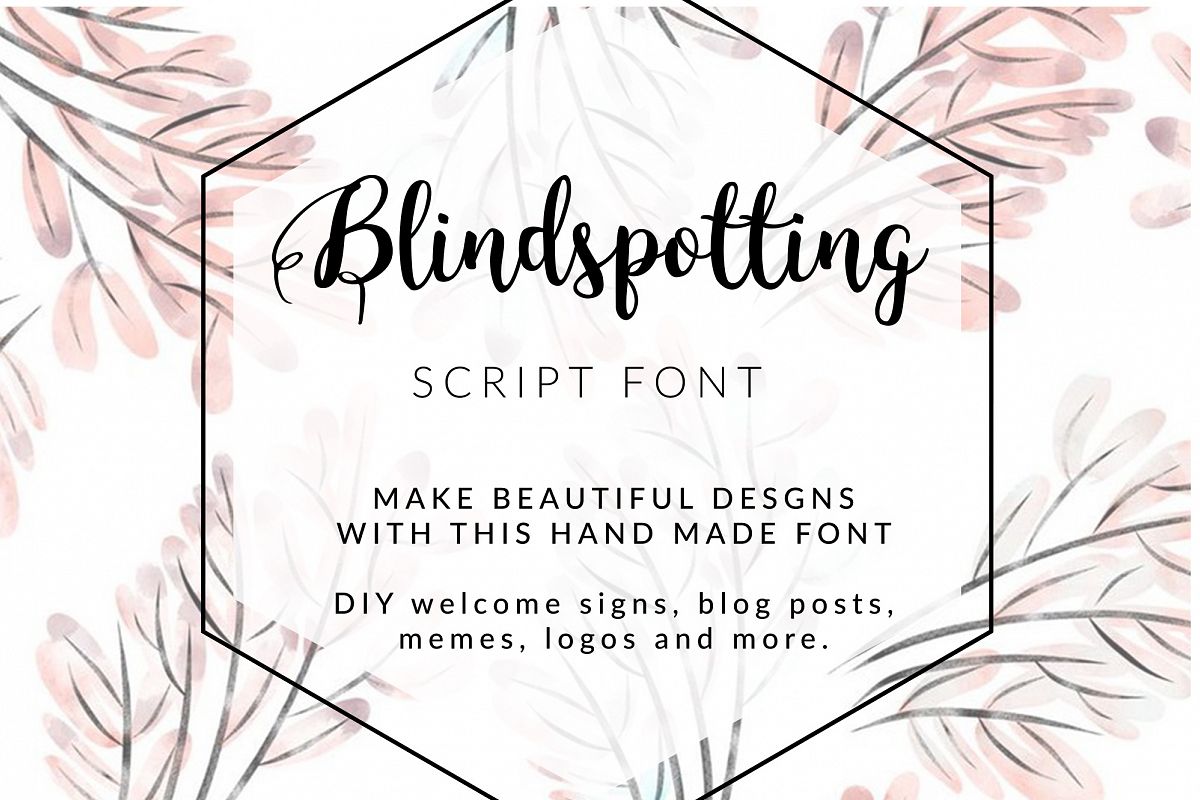
BLINDSPOTTING SCRIPT FONT
BlindspottingRegular
This font was created with great attention to detail.
The capital letters have been thought as to give an bohemian and elegant touch. It can be used for any design project or simply as a stylish text overlay to any background image and the capital letters can be even used on their own to create a logo with the initials of your name.